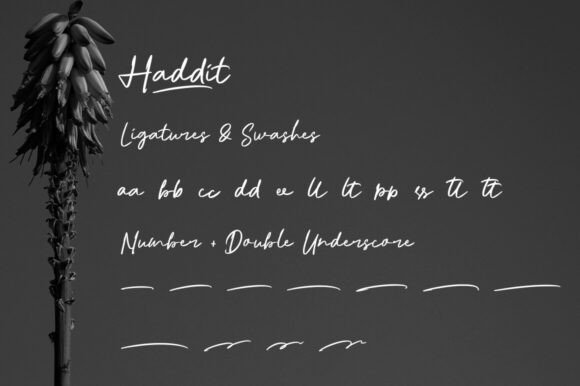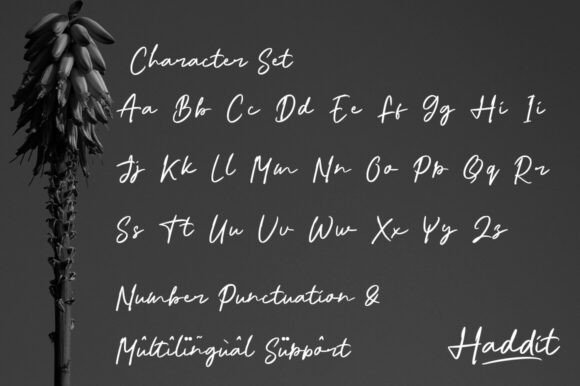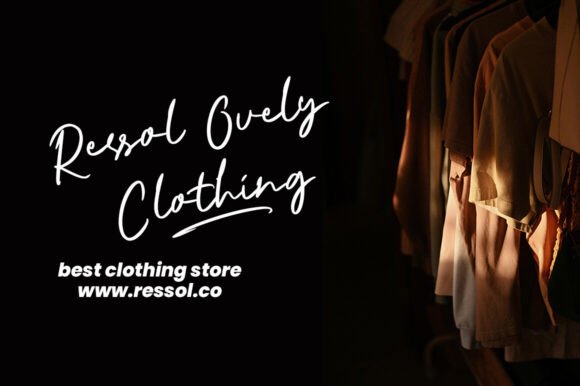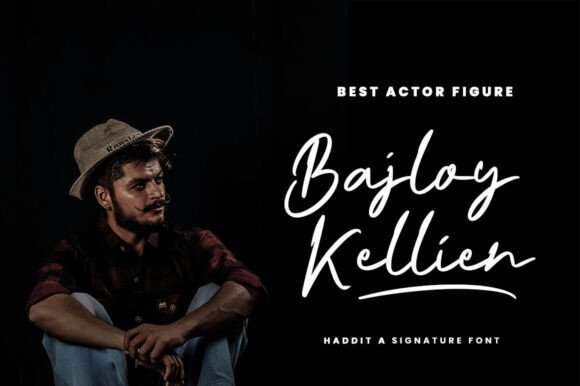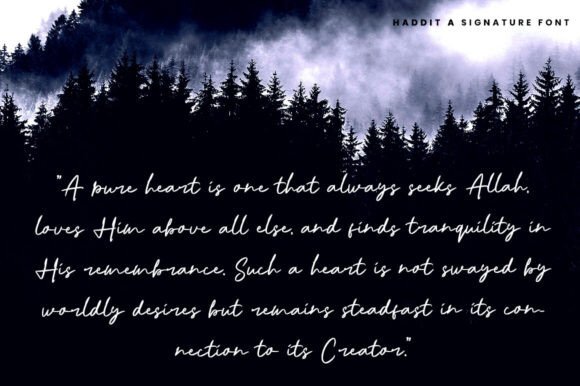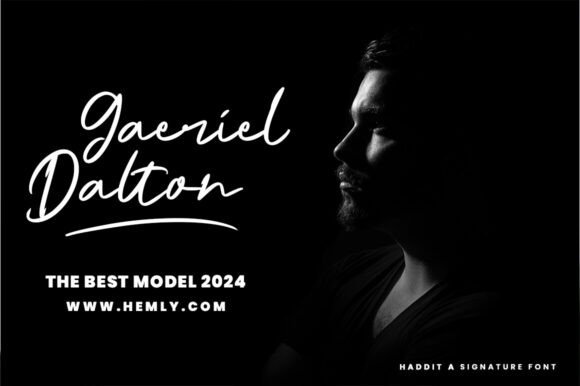
Haddit Font: Elevate Your Designs with Elegance and Sophistication
In the world of typography, fonts play a crucial role in conveying the tone and personality of a design. For designers and crafters seeking to add a touch of elegance and sophistication to their work, Haddit Font is an exceptional choice. This stylish and incredibly elegant script font is perfect for a variety of design projects, including wedding invitations, thank you cards, quotes, greeting cards, logos, business cards, and more.
The Beauty of Haddit Font
Haddit Font boasts a unique and captivating aesthetic that instantly elevates any design. Its flowing script style, characterized by delicate connections and precise letterforms, exudes a sense of luxury and refinement. The font’s elegant appearance makes it an ideal selection for designs that require a sophisticated and high-end look.
One of the standout features of Haddit Font is its versatility. This font can be used across a wide range of design projects, from romantic wedding invitations and heartfelt thank you cards to inspiring quotes and professional business cards. Whether you’re a designer looking to create stunning visual content or a crafter seeking to add a personal touch to your handmade projects, Haddit Font is an excellent choice.
Weddings and special events are a perfect match for Haddit Font. The font’s elegant and sophisticated appearance makes it an excellent selection for wedding invitations, save-the-date cards, and other event-related designs. With Haddit Font, you can create beautiful and memorable designs that will leave a lasting impression on your guests.
Enhance Your Brand with Haddit Font
For businesses and entrepreneurs, Haddit Font can be a valuable asset in building a strong brand identity. The font’s unique and stylish appearance can help you create a distinctive visual brand that sets you apart from the competition. Use Haddit Font to design professional business cards, logos, and marketing materials that exude elegance and sophistication.
Key Features of Haddit Font
- Elegant Script Style: Haddit Font features a beautiful and flowing script style that adds a touch of sophistication to any design.
- Versatile and Flexible: This font can be used across a wide range of design projects, from wedding invitations to business cards.
- High-Quality Design: Haddit Font is designed with precision and attention to detail, ensuring a high-quality appearance in any design.
- Easy to Read: Despite its elegant appearance, Haddit Font remains easy to read, making it perfect for designs that require a balance of style and legibility.
Tips for Using Haddit Font
To get the most out of Haddit Font, consider the following tips:
- Pair with Complementary Fonts: Combine Haddit Font with complementary fonts to create a visually appealing contrast.
- Experiment with Colors: Try pairing Haddit Font with different colors to find the perfect match for your design.
- Use for Headings and Titles: Haddit Font is perfect for headings and titles, where its elegant appearance can make a lasting impression.
In conclusion, Haddit Font is an exceptional choice for designers and crafters seeking to add a touch of elegance and sophistication to their work. With its stylish and incredibly elegant script style, this font is perfect for a wide range of design projects, from wedding invitations to business cards. By incorporating Haddit Font into your designs, you can create stunning visual content that leaves a lasting impression on your audience.